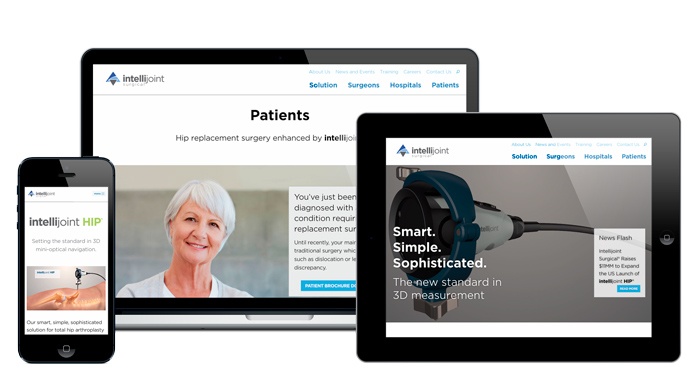
How to choose fonts for web design?
Choosing fonts for web design can seem daunting, but with a little research and understanding, the process can be simplified. There are a number of factors to consider when selecting fonts for your website, including the typeface's overall look, how it will be used on the page, and its compatibility with other web design elements. Ultimately, it's important to choose fonts that will complement the website's aesthetic and appeal to its users.
What is a website font?
Web design is all about creating a visually appealing and easy-to-navigate site that will showcase your product or service. One of the most important aspects of web design is choosing the right font for your website. Here are some things to keep in mind when selecting a web font:
- -Font size: Keep your font size small enough so that it’s easy to read, but big enough so that it looks professional.
- -Font type: Choose a typeface that’s legible and versatile. For example, Verdana is a common typeface used on websites because it looks professional and can be easily scaled up or down.
- -Style: Be sure to choose a style that matches the overall tone and feel of your website. For example, if you have a rustic website with earthy tones, go with an earthy font like Adobe Garamond.
What are the different types of fonts?
Web design is the process of creating a website. It can be broken down into three main categories: front-end design, back-end design, and web development.
Front-end design is focused on the look and feel of the website. This includes everything from the layout and colors to the fonts and graphics used.
Back-end design concerns itself with how the website functions. This includes things like setting up databases and managing traffic.
Web development deals with actually putting together all of the elements mentioned above. It can involve programming languages and tools, as well as designing user interfaces.
What is the difference between serif and sans-serif fonts?
Web design has come a long way since its inception. While the basics of web design have not changed much over the years, the technology and tools that are used today are vastly different from what was available even five years ago. In this article, we will explore the differences between serif and sans-serif fonts and consider how they can impact web design.
Serif fonts are typically more traditional in appearance, with tighter letterforms and slightly curved tines on the letters. They are often used for text that is intended to look high-class or formal. Sans-serif fonts, on the other hand, tend to be more modern looking, with less ornate letterforms and straight tines. They are often used for text that is intended to be read by as many people as possible.
What are the different types of fonts used on a website?
Web design has come a long way since the days of simple text and images. Today, web designers use a variety of fonts to give their websites a unique look and feel. Here are six different types of fonts and what they're used for: serif, sans-serif, script, slab serif, cursive, and fantasy.
What are the benefits of choosing a font for web design?
Font choice is one of the most important decisions you'll ever make when designing web pages. Not only do different fonts affect the overall aesthetics of your site, they also play an important role in usability. Here are some key benefits to using fonts for web design:
1. Different fonts can change the tone and mood of a site. For example, a sans-serif font like Arial can be more formal and business-like, while a font with lots of personality like Comic Sans can be playful and fun.
2. Fonts can be used to create an "atmosphere" or "feel" for a site. For example, header texts on a website might be written in a serif font to give it an authoritative feel, while body text might use a more informal font to reflect the tone and content of the site.
What is the best font for a website?
Web design is all about creating a visually appealing and user-friendly website. There are many different factors to consider when designing a website, but one key factor is the type of font used. A font can be the perfect way to add personality and style to your site, but it's important to choose the right font for your particular project.
There are plenty of factors to consider when choosing a font for a website. Some factors include the size of the font, its style (monospaced, sans-serif, serif), and whether you want it to be weighty or light. Additionally, you'll want to consider the target audience of your site and what kind of tone you're going for. For example, if you're creating a business website intended for an affluent audience, you might choose a more formal typeface like Old Style or Garamond.
Why do websites use fonts?
Fonts are one of the most important elements in web design. They can make a website look professional and unique. Here are some reasons why websites use fonts:
Arial is probably the most common font for websites intended for general audiences. It's simple and easy to read, and it looks good on most backgrounds. If your website is aimed at a business audience, font choices such as Verdana or Arial may be more appropriate.
When designing a website, it's important to keep in mind the target audience. Some fonts are better suited for one type of audience over another. For example, Comic Sans is often used on websites designed for children because their children look makes it less threatening.